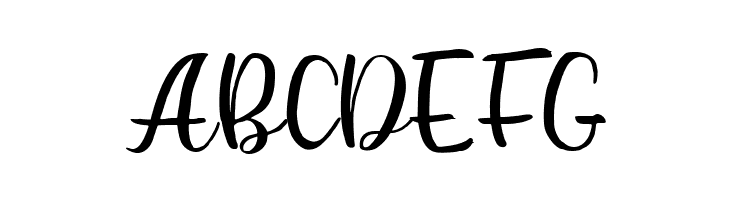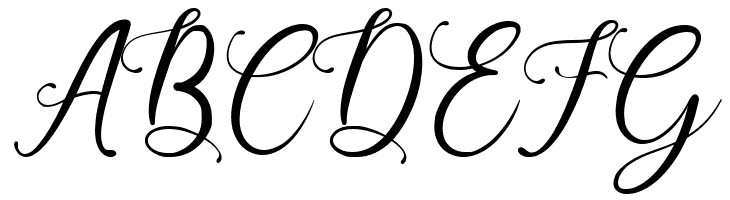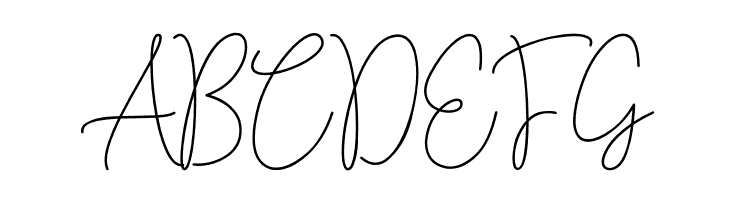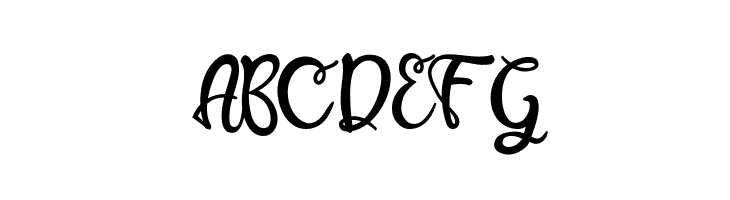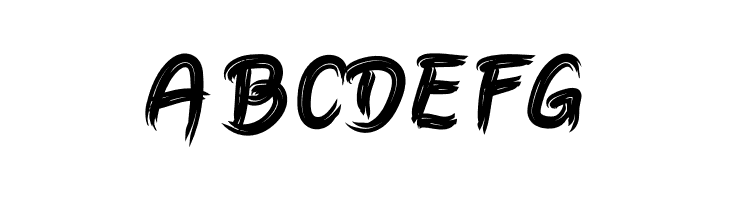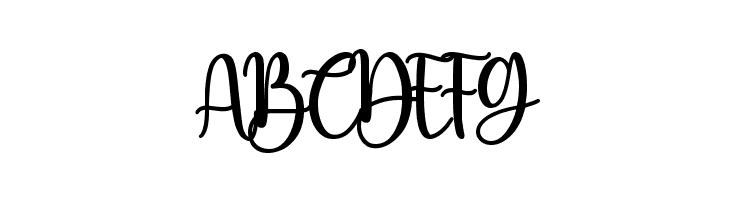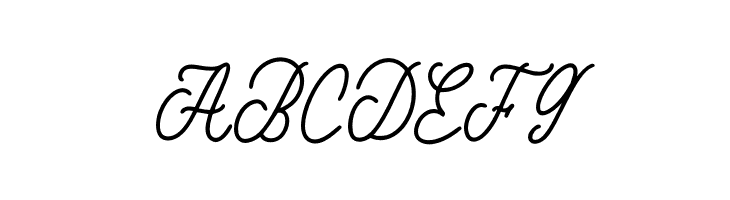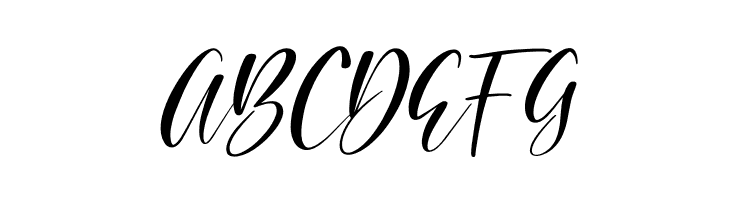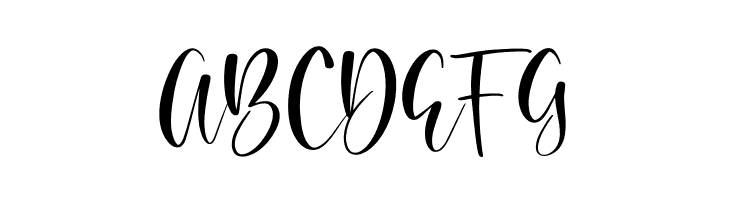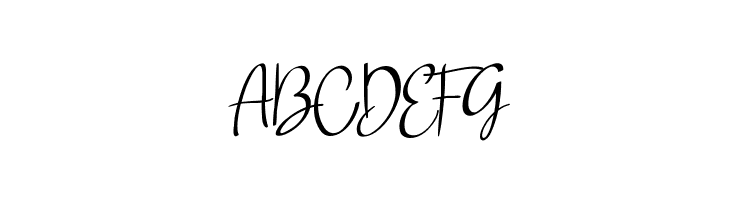
A bold, expressive handwritten font with fluid, connected letterforms.
An elegant, flowing script font with graceful curves and cursive strokes.
A graceful script font with elegant loops and swirls, perfect for romantic designs.
A bold, expressive handwritten font with a playful and artistic flair.
An elegant, flowing script font with whimsical, decorative elements.
A cursive, elegant font with a classic calligraphic style.
A graceful, handwritten script font with a flowing and elegant style.
An elegant, flowing script font with ornate uppercase and graceful lowercase letters.
An elegant script font with graceful curves and delicate strokes, perfect for sophisticated designs.
Playful handwritten font with a casual style.
An elegant, flowing script font with high contrast and modern appeal.
A whimsical and artistic script font with interconnected loops and curves.
A lively, handwritten cursive font with dynamic strokes and a playful style.
An artistic and decorative script font with fluid, cursive strokes.
An elegant cursive script font with flowing curves and artistic flourishes.
A bold, expressive handwritten font with brush-like strokes.
A whimsical, cursive font with a flowing, handwritten style.
A stylish and elegant handwritten font with fluid, connected letterforms.
An elegant script font with flowing, cursive lines and decorative flourishes.
An elegant, cursive font with flowing loops and swirls.
An elegant, flowing script font with bold, expressive strokes and artistic flair.
An elegant, cursive italic font with flowing, sophisticated strokes.
A playful, whimsical handwritten font with a festive and elegant style.
A bold, brush-style font with dynamic, hand-painted strokes.
A playful and elegant script font with bold, flowing characters.
A bold, expressive script font with flowing cursive letterforms.
An elegant, flowing script font with a handwritten style.
A playful and elegant script font with smooth curves and artistic loops.
An elegant, flowing script font with a cursive, handwritten style.
A decorative and bold font with playful swirls and flourishes.
A playful, handwritten font with bold, flowing characters.
An elegant and flowing script font with graceful, cursive letterforms.
A playful handwritten font with smooth, flowing lines and a casual style.
An elegant script font with flowing, cursive strokes and intricate loops.